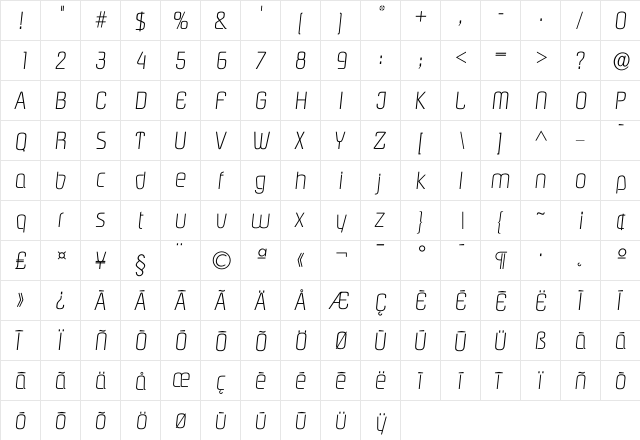
Ipasadena Xlight
Design Context for Ipasadena Typeface
Ipasadena offers clean, dependable letterforms without strong stylistic allegiance, making it a practical choice for designers who need flexibility. Its slender proportions lend an understated elegance to any composition.
Pro Tip: Pair Ipasadena with a font of contrasting weight or personality to build a more expressive typographic hierarchy.